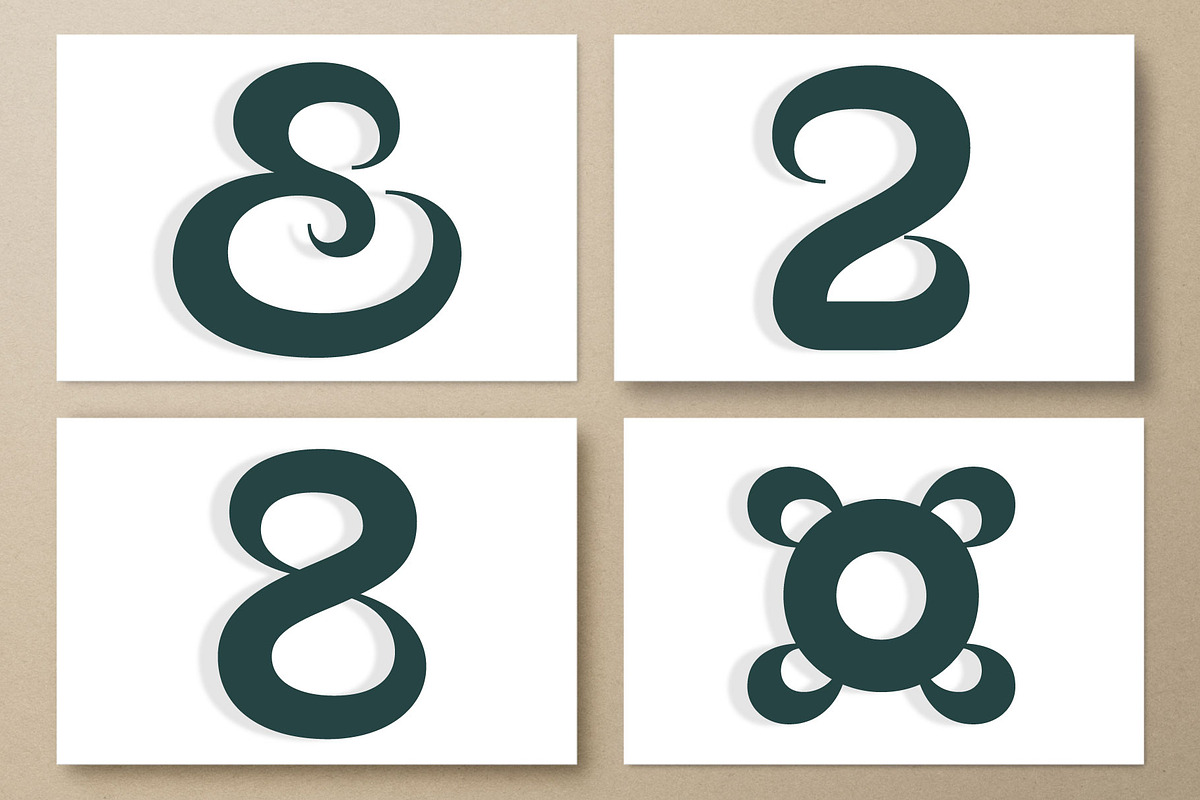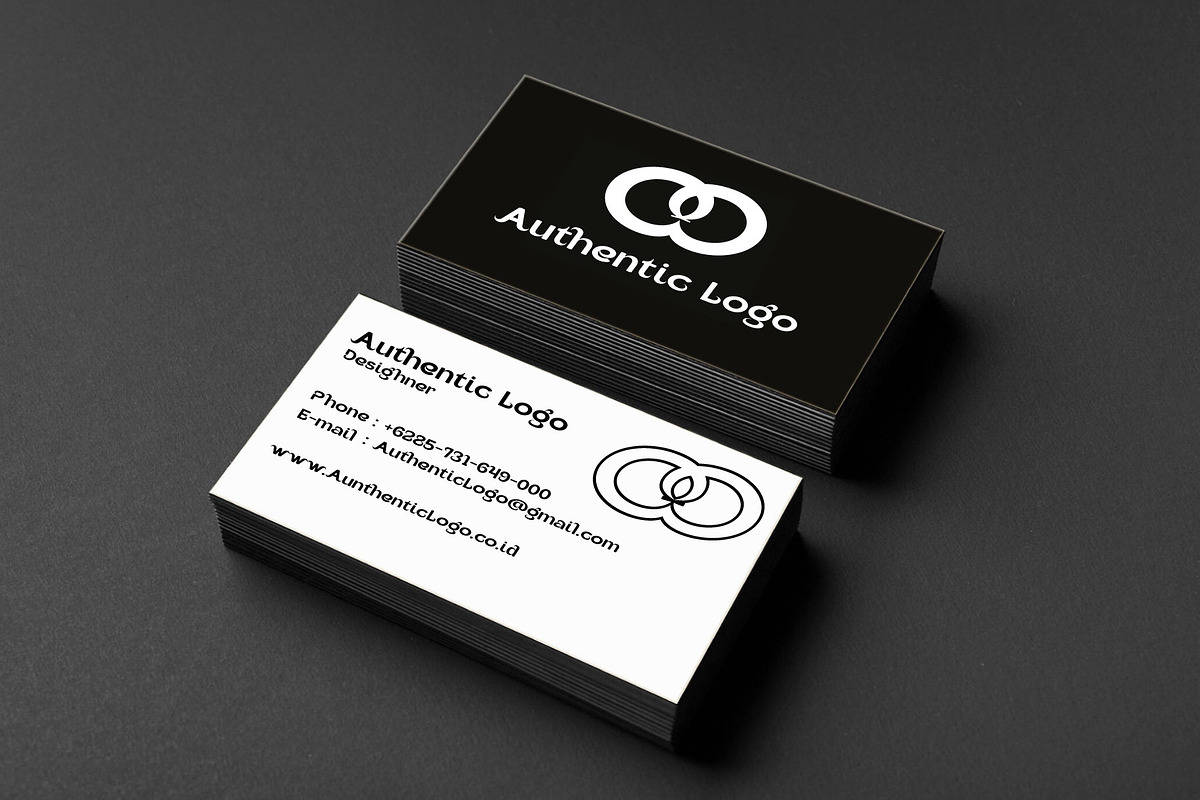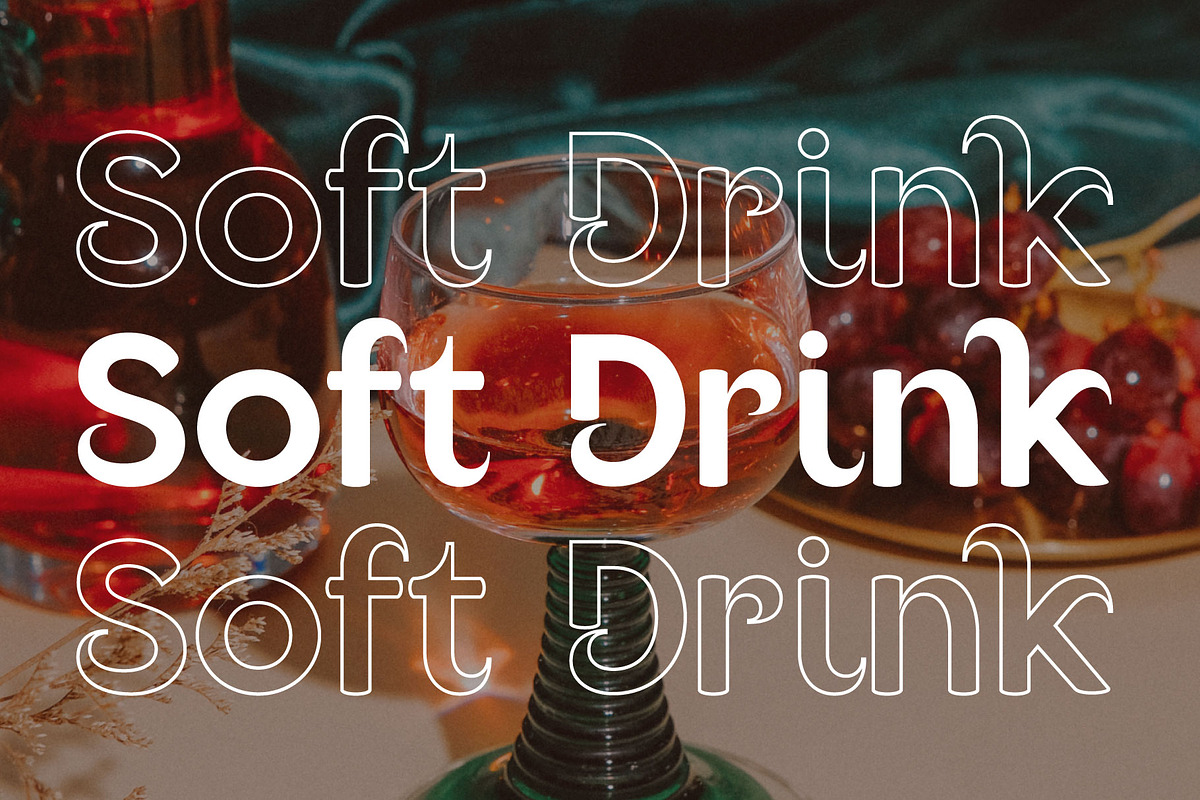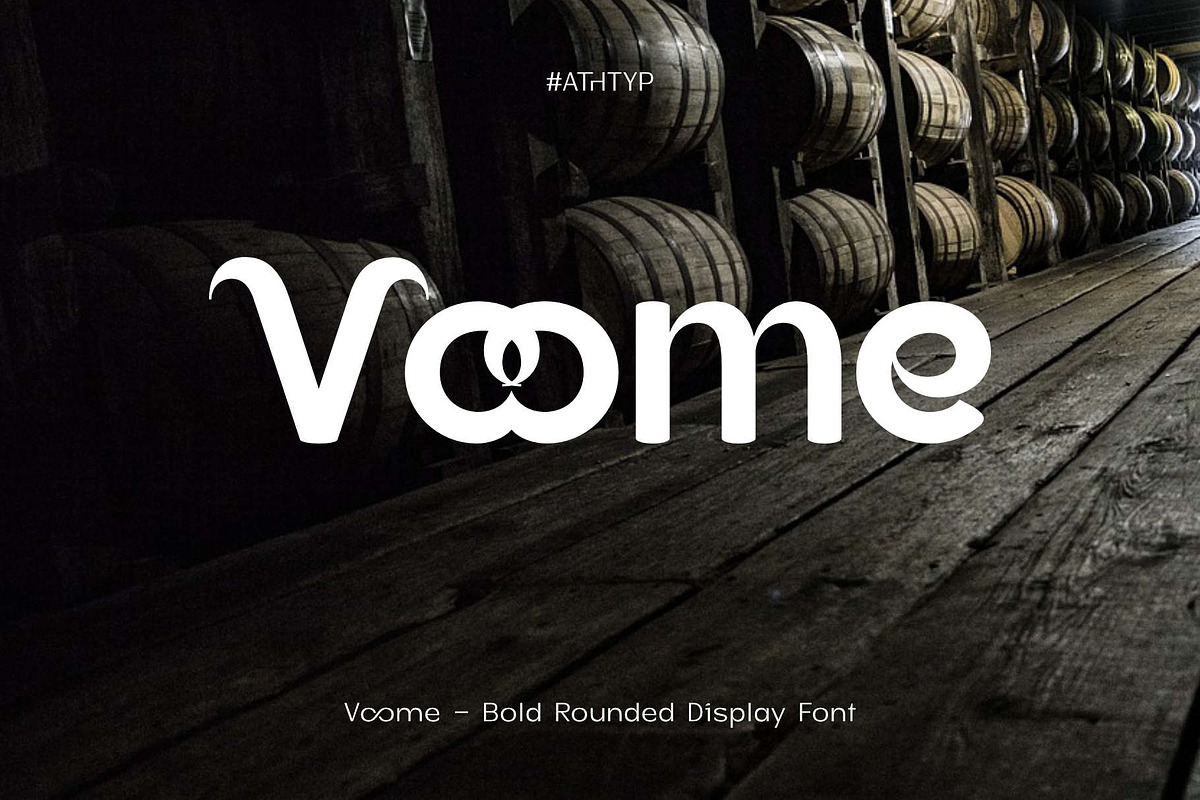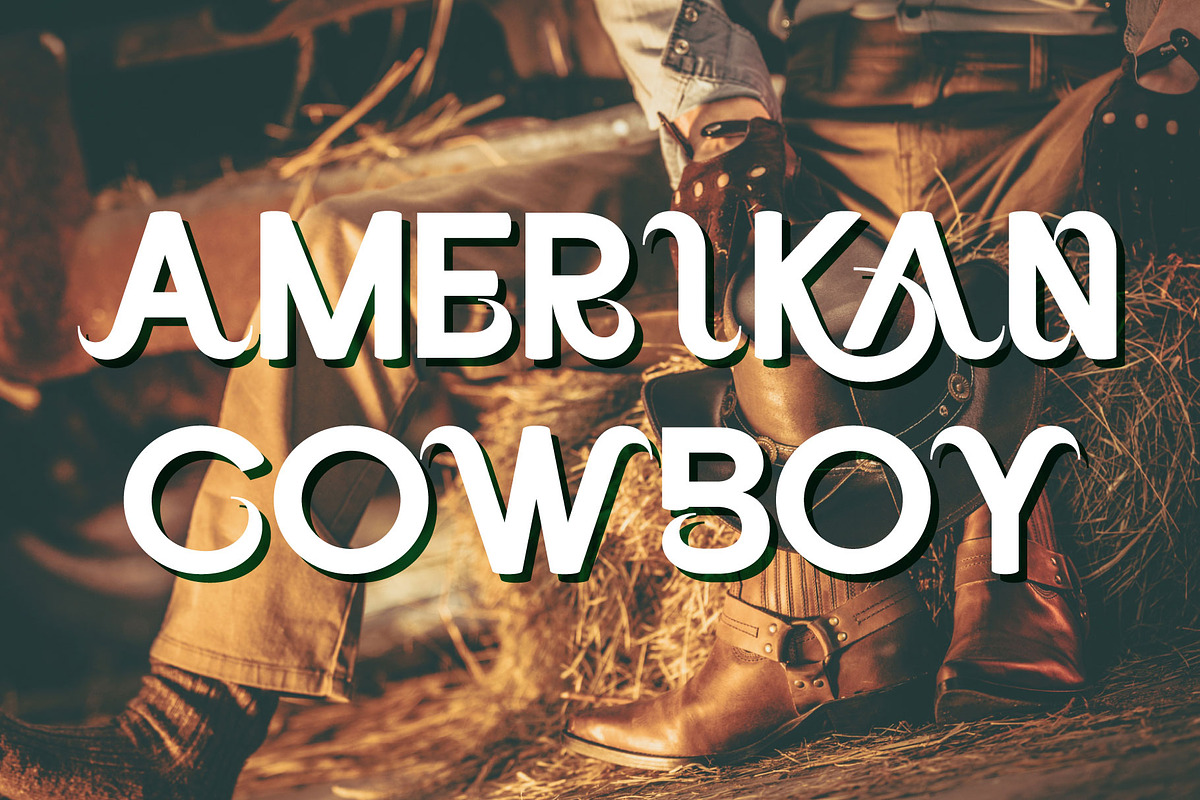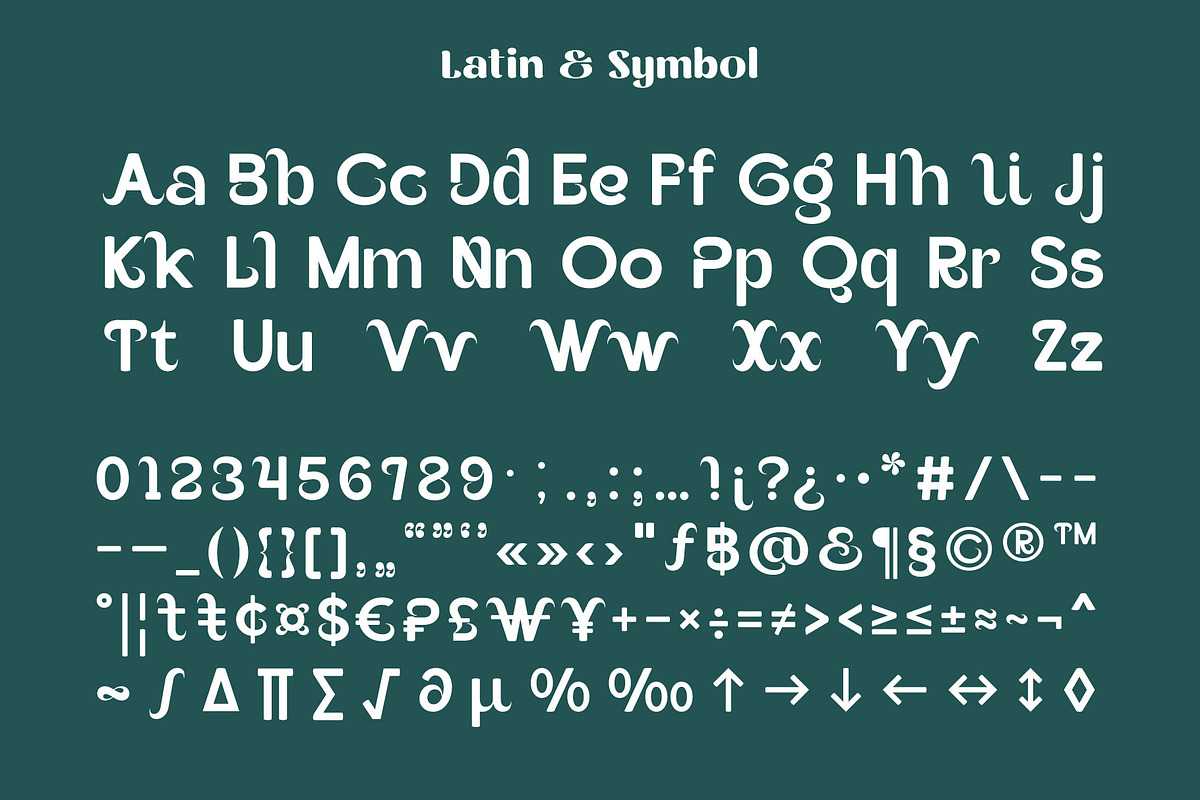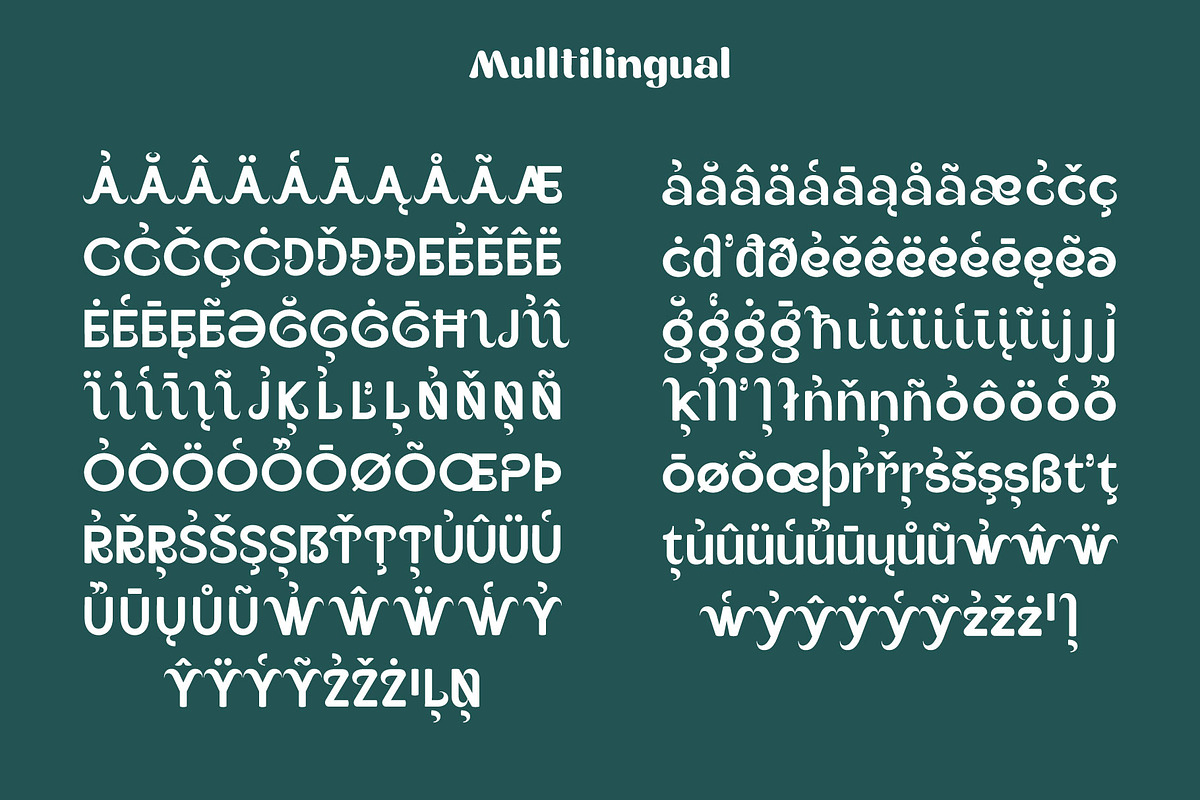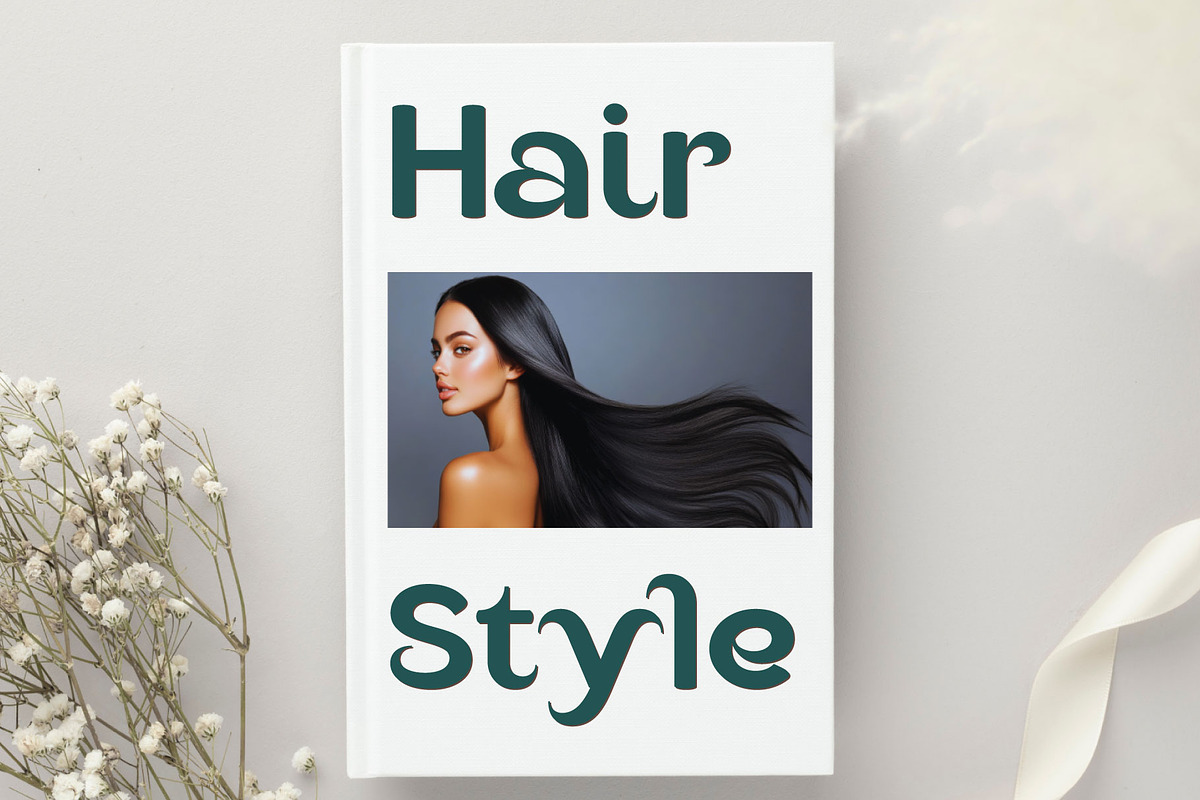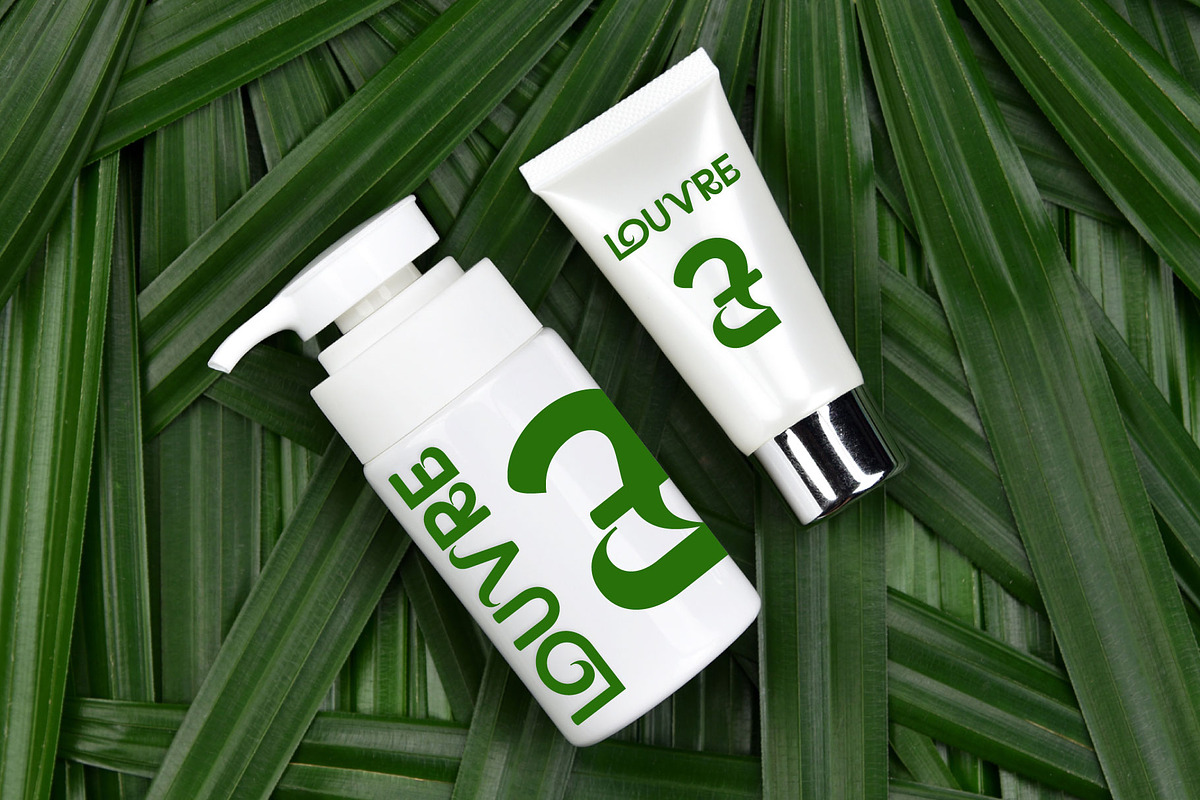
Voome – Bold Rounded Display Font
Voome is a bold rounded display font that blends visual strength with a touch of warmth and personality. Designed with the philosophy that typography should convey emotion as well as aesthetics, Voome stands out as bold, expressive, and friendly in every curve.
The design philosophy behind Voome is rooted in the idea of balance between soft and strong forms, modern expression and retro charm. Each letter features a dynamic flow and geometric precision, creating a sense of movement and connection, as if every shape interacts harmoniously with the others.
As a modern rounded typeface, Voome is perfect for logos, posters, packaging, branding, and editorial headlines. Its soft yet confident structure gives your design a unique, approachable, and professional look, ideal for projects that aim to be both playful and sophisticated.
Voome also comes with creative ligatures, multilingual support, and a complete set of symbols, making it a truly versatile typeface for global design use. Whether you’re working on modern branding, retro-inspired design, or eye catching typography, Voome adds a distinctive character and timeless balance to your creative projects.